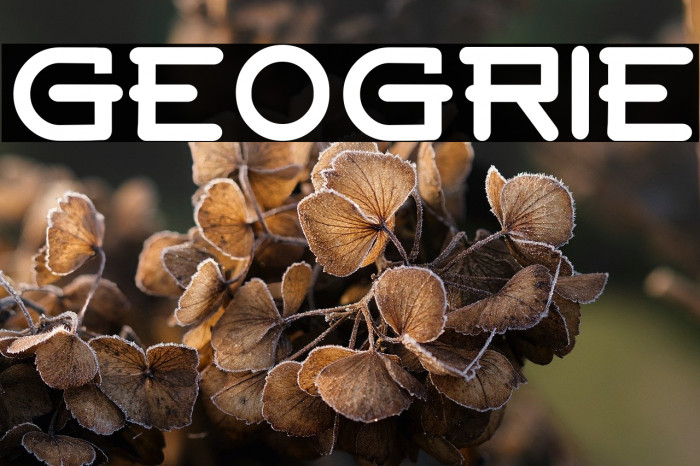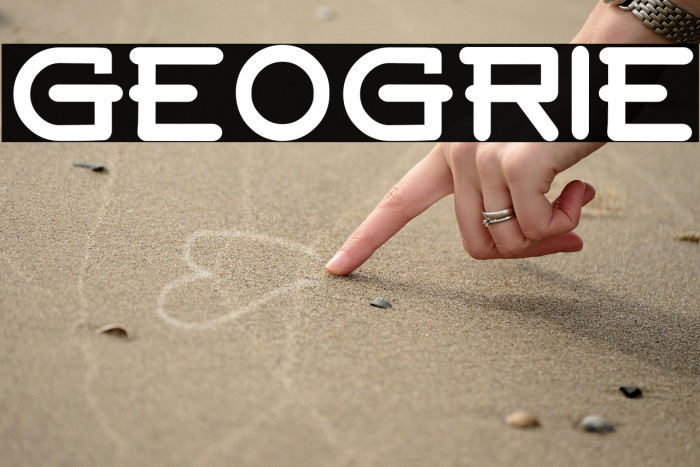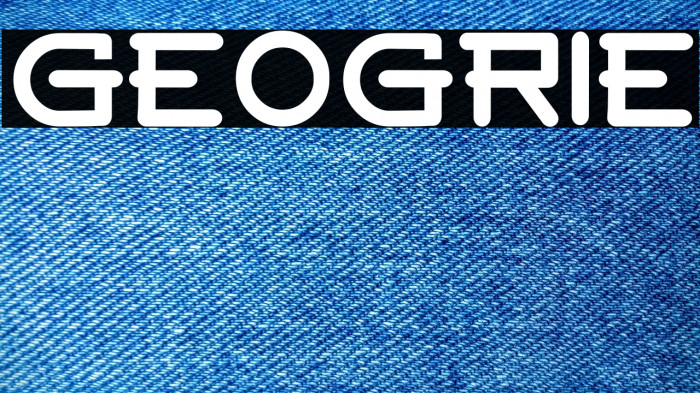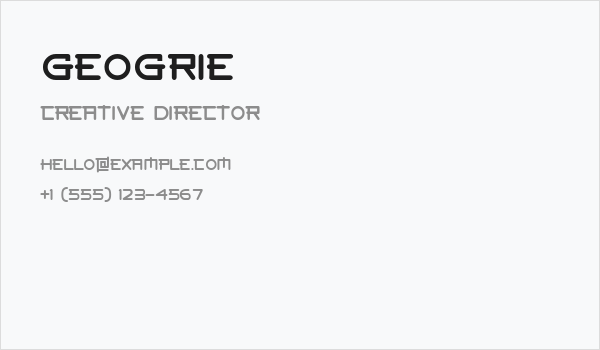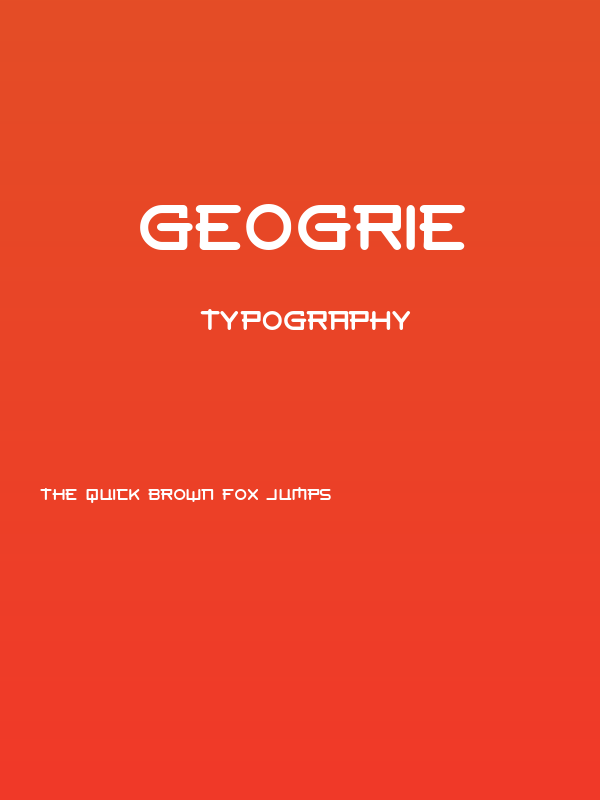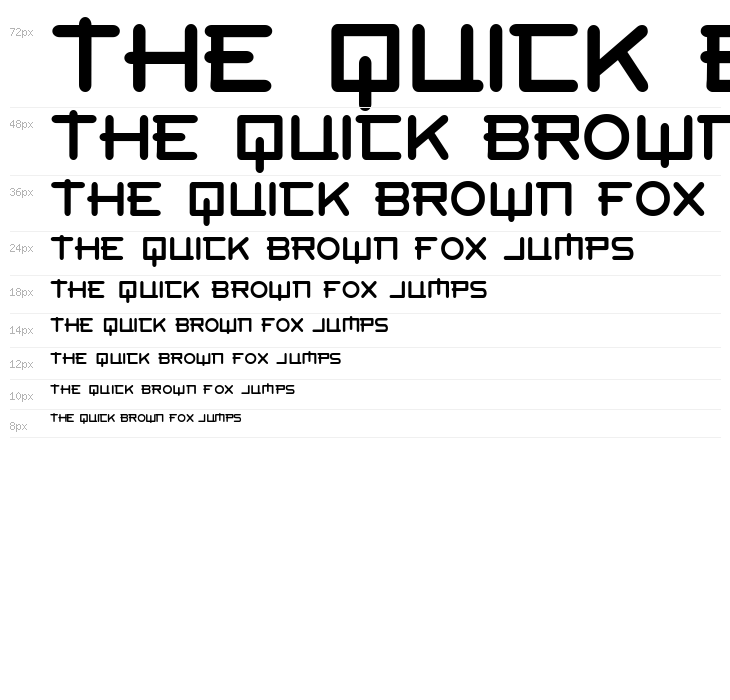
GEOGRIE Font
GEOGRIE Description
This font features a modern, geometric style with rounded edges and a clean, futuristic appearance. The characters are uniformly structured, providing a sense of balance and symmetry. The uppercase and lowercase letters maintain a consistent height, contributing to its uniformity. The numbers and special characters follow the same design principles, ensuring a cohesive look across all glyphs. The font's design is both functional and aesthetically pleasing, making it suitable for various applications where a contemporary and sleek look is desired.
| Use Case | Headlines, Logos, Digital interfaces |
| Proposed Projects | Ideal for technology branding, modern advertising, digital interfaces, and futuristic-themed projects. |